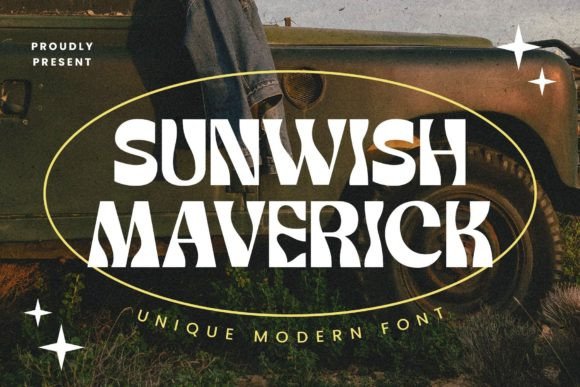
Introducing Sunwish Maverick – an explosive font that screams uniqueness and individuality, pushing the boundaries of creativity. Unleash your artistic flair and dive into a typographic adventure like no other. Designed by the imaginative minds at Arterfak Project, Sunwish Maverick bursts onto the scene as a psychedelic eruption of thick-thin curves, paying homage to art nouveau's elegance and modern bold serifs, creating a mesmerizing dance of visual delight.
A font so versatile, it effortlessly adapts to a symphony of design possibilities. Picture a magazine title that radiates energy and sets it apart from the mundane, demanding attention with its bold strokes and captivating curves. Dive into a world of poster designs that leap off the page, inviting onlookers into a realm of vibrant imagination and eye-catching aesthetics. Create groovy posters that pulsate with life, echoing the spirit of a bygone era while maintaining a refreshingly contemporary edge.
Sunwish Maverick thrives in the spotlight, gracing headlines with a confident swagger that commands attention. Its playful thick-thin curves lend themselves beautifully to retro flyers, captivating onlookers with their nostalgic charm and vintage sensibilities. Bring your decal designs to life with a touch of Sunwish Maverick's experimental flair, adding a dash of intrigue and originality that sets them apart from the ordinary.
Designers yearning for an expressive font to capture the essence of contemporary fashion will find solace in Sunwish Maverick's arms. Its bold strokes and dynamic curves mirror the audacity of modern trends, adding a touch of edge and personality to your creations. Elevate your magazine layouts to new heights with Sunwish Maverick, where every page becomes a visual masterpiece, captivating readers with its unique typographic appeal.